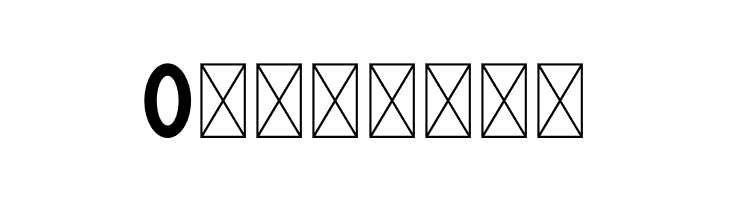
A flowing, cursive script with elegant loops and swashes.
A playful, handwritten font with smooth, rounded strokes and a casual, friendly appearance.
A playful, hand-drawn serif font with bold, irregular strokes.
A playful and energetic handwritten font with bold, flowing strokes.
A modern, geometric font with angular, consistent lines.
A bold, playful script font with a handwritten feel.
A bold, playful handwritten font with a dynamic and friendly style.
A bold, geometric sans-serif font with a modern and clean aesthetic.
A bold, geometric sans-serif font with smooth curves and a modern aesthetic.